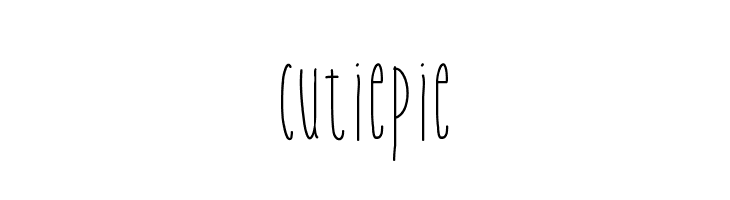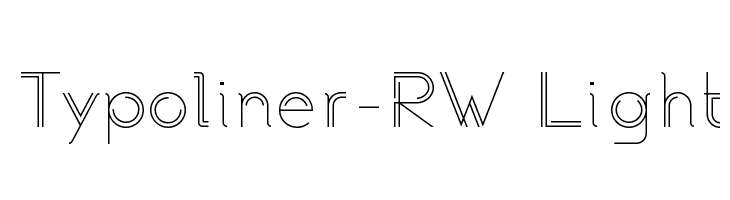
A playful, tall, and narrow font with thin strokes and a whimsical style.
A bold, brush-style font with a hand-drawn, rustic appearance.
A whimsical, hand-drawn font with uneven, wavy lines and a playful, artistic style.
A traditional script font with elegant, flowing curves and dynamic strokes.
A sleek, modern font with a clean, minimalist design and slight slant.
A modern, geometric font with a double-line, outlined design.
A bold, expressive brush script font with a dynamic, hand-painted style.
A circuit diagram-inspired decorative font with schematic symbols.